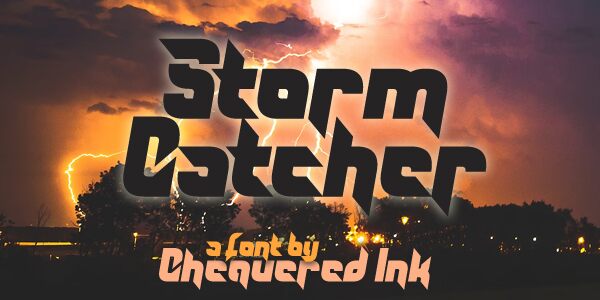
Storm Catcher
Storm Catcher is a bold, futuristic display font crafted by the talented designers at Chequered Ink. With its striking condensed appearance and sharp, angular letterforms, this font exudes a sense of power and technological sophistication. The bold weight and condensed width lend a sense of strength and confidence, while the sleek, futuristic aesthetic evokes a forward-thinking, cutting-edge vibe.
Storm Catcher's versatility shines through in its ability to command attention in a variety of design contexts. Its bold, condensed nature makes it an excellent choice for headlines, titles, and eye-catching branding elements, where it can effectively grab the viewer's attention and convey a sense of innovation and modernity. Whether in digital interfaces, print materials, or multimedia presentations, Storm Catcher by Chequered Ink is a font that will leave a lasting impression.